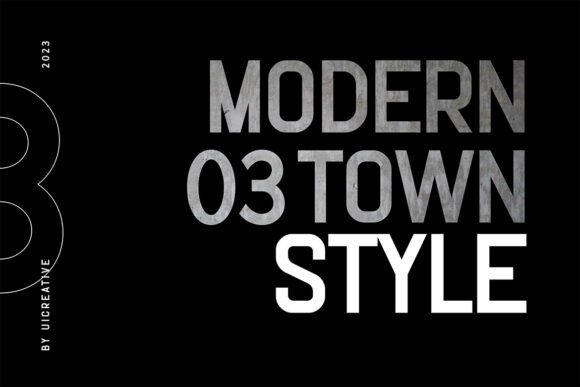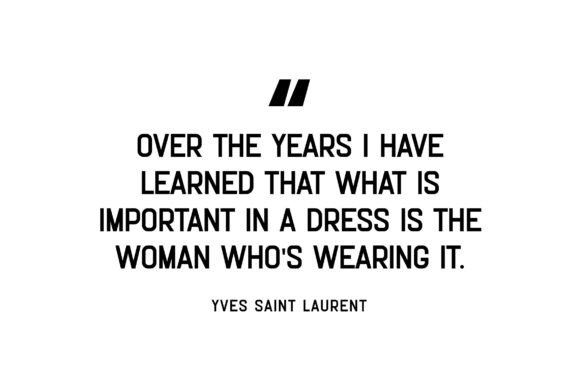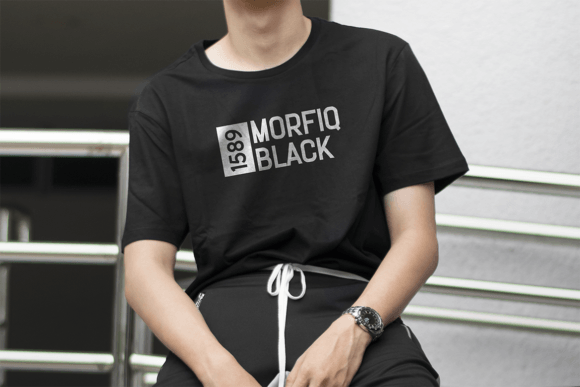
Introduction to Langostions Font
Have you ever stared at a blank canvas, waiting for the perfect font to bring your creative project to life? The thrill of design is in those moments of discovery, when the right typography elevates your idea and makes it truly special. For designers, finding the perfect font can be a game-changer – it’s what sets a logo apart, adds depth to a quote, or creates a lasting impression on a brand.
That’s where the Langostions Font comes in – a stunning sans serif font that’s perfect for designers looking to create eye-catching logos, branding, and quotes. With its unique and beautiful touch, Langostions Font is a valuable design resource that’s sure to elevate any creative project. Whether you’re working on a high-quality design or simply need a versatile font for your next project, Langostions Font is an excellent choice.
Key Features of Langostions Font
- High-quality design resource suitable for various creative projects, including graphics, logos, and typography.
- Langostions Font features a transparent background, allowing for seamless integration with any design or image.
- The font includes a variety of styles, including bold, italic, and regular, to cater to diverse design needs.
- Unique characteristics: Langostions Font boasts a distinctive, modern design with clean lines and elegant curves, making it perfect for contemporary design projects.
Honest Review: Langostions Font
As a designer, I’m always on the lookout for high-quality design resources that can elevate my creative projects. The Langostions Font is one such find that I’m excited to share with you. ✨
Here are some of the key features that I like about Langostions Font:
- Can be used on both digital and print design projects
- Features a modern aesthetic that’s sure to impress
- Includes a transparent background option, which is great for designing on a transparent background
While Langostions Font is a solid choice for most design projects, there are a few limitations to be aware of: ⚠️
- Only includes a limited character set, which may not be ideal for projects that require a wide range of characters
- May not be as widely supported as some other fonts, which could cause compatibility issues in certain situations
Overall, I’m impressed with the Langostions Font and would definitely recommend it to fellow designers. Its high-quality design, versatility, and free download make it a great addition to any design arsenal. ✨
Langostions Font is a high-quality design resource that offers a unique and creative way to enhance your projects. This font is perfect for designers, artists, and anyone looking for a versatile design element.
Use Langostions Font on a transparent background to create a sense of depth and dimension in your designs. Experiment with different font sizes and colors to add visual interest. You can also combine Langostions Font with other design elements to create a unique and eye-catching look.
Langostions Font is perfect for a variety of creative projects, including:
- Infographics
- Brochures
- Posters
- Business cards
- Wedding invitations